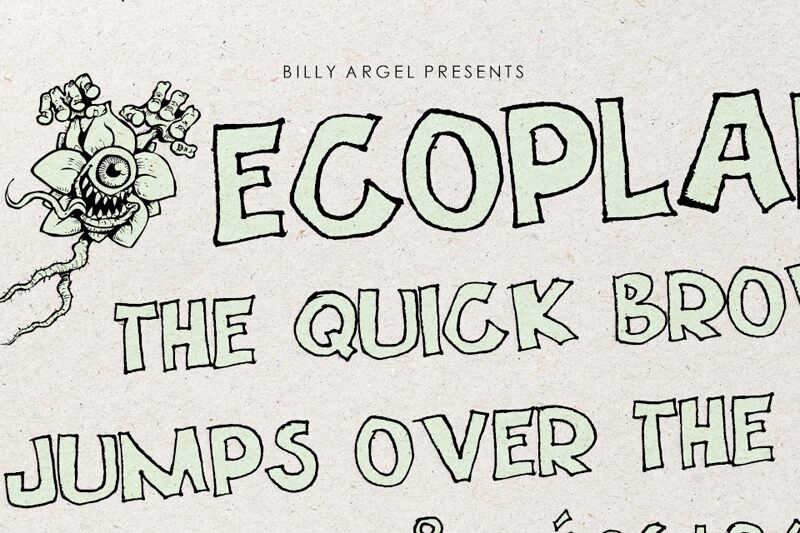
ECOPLANET, a bold and captivating display font designed by Billy Argel Fonts, adds a touch of whimsy to any project. With its outlined comic style, this font is perfect for creating eye-catching headlines, posters, and logos that demand attention. Whether you're designing a children's book cover or an imaginative website banner, ECOPLANET's bold weight and playful aesthetic will make your content pop. Let this versatile font transport your audience to a world of creativity and imagination. Suitable for projects ranging from branding campaigns to social media graphics - the possibilities are endless!
Two layered fonts.